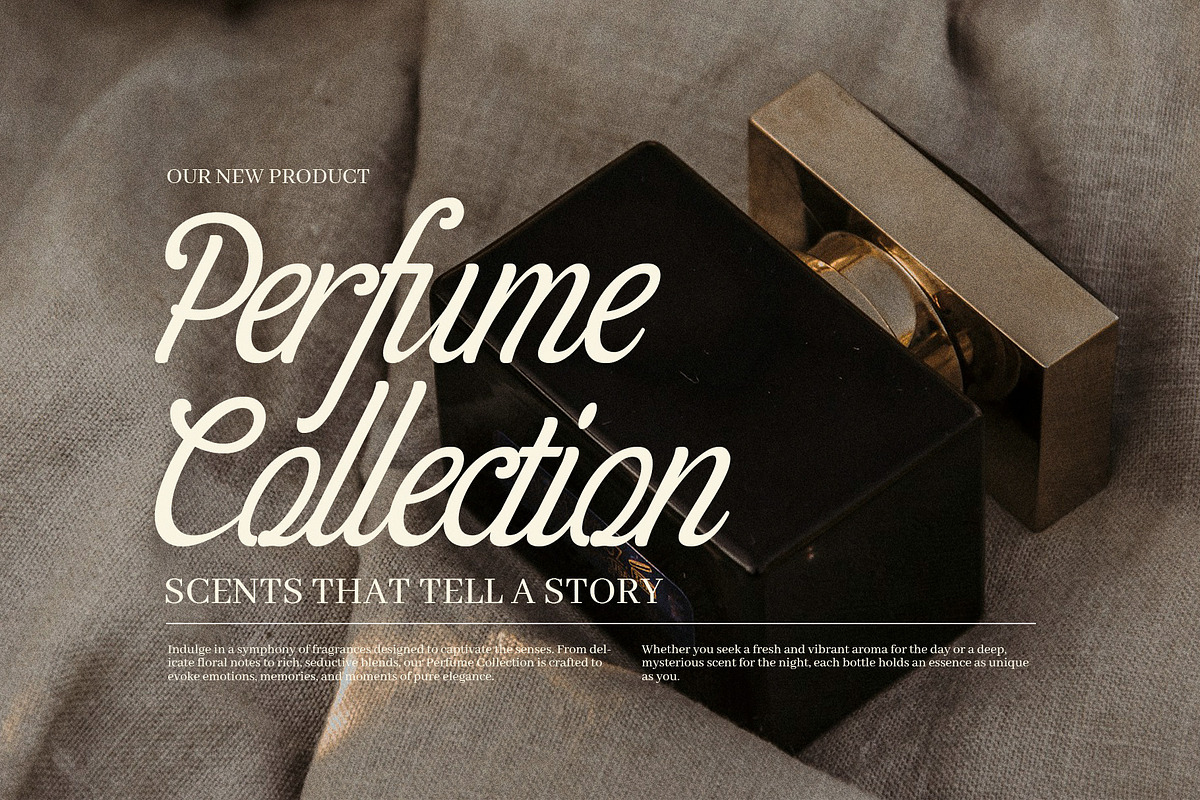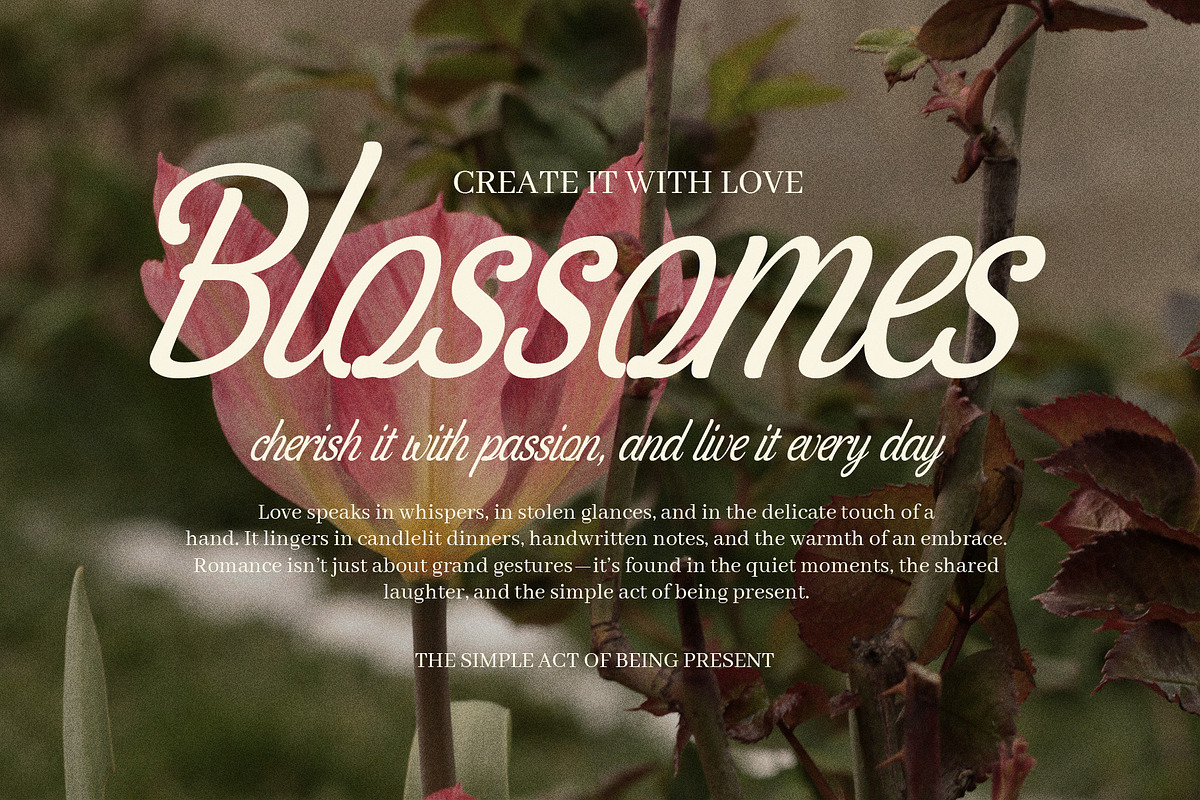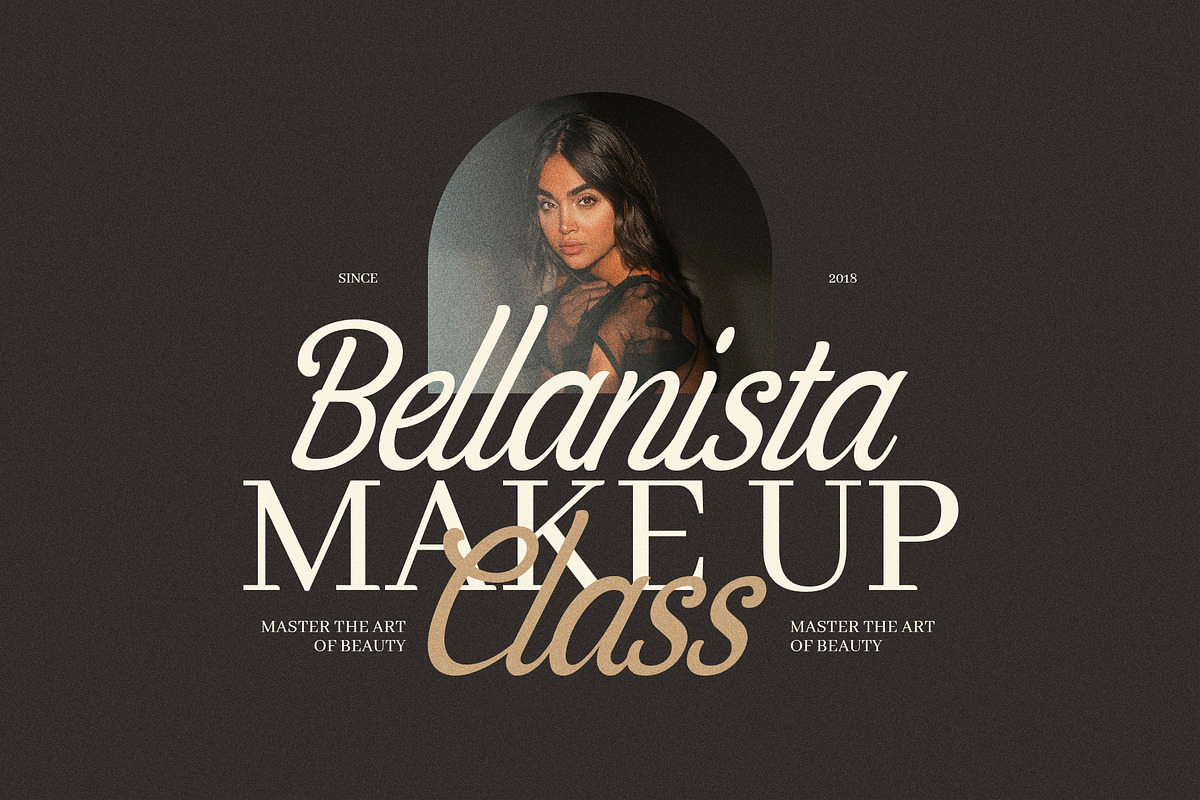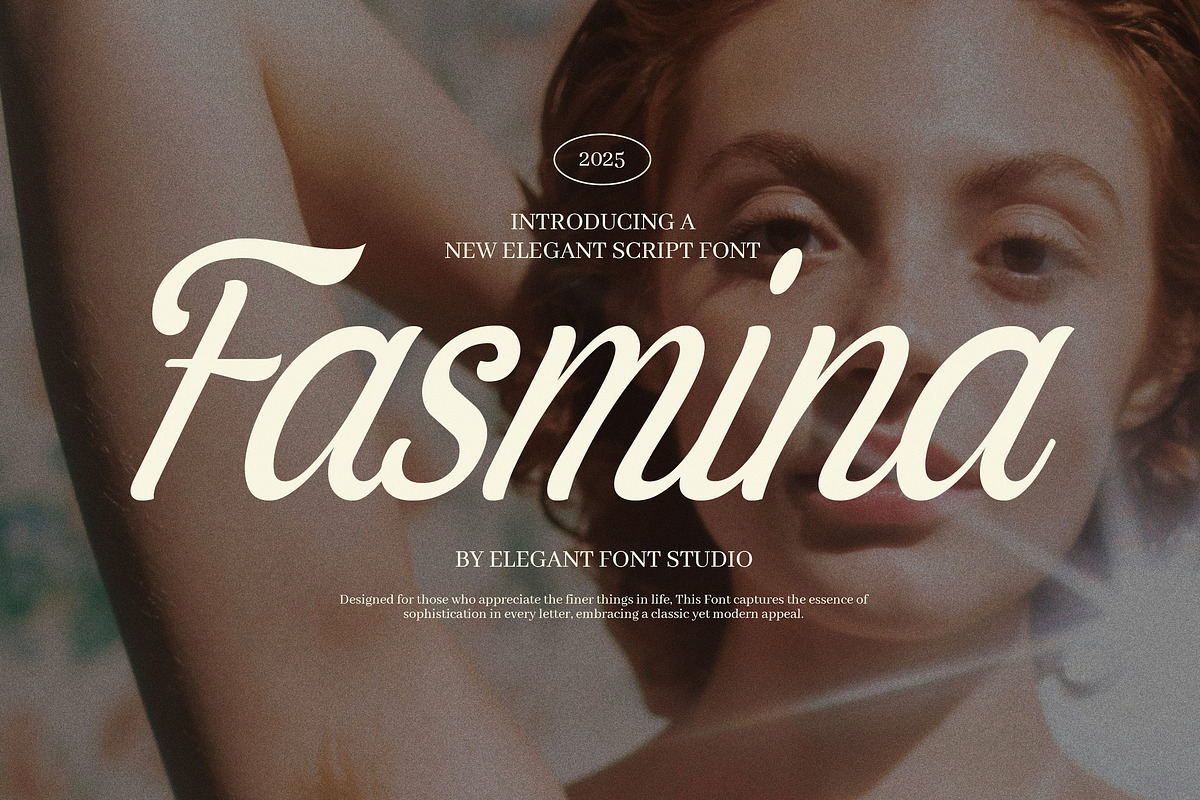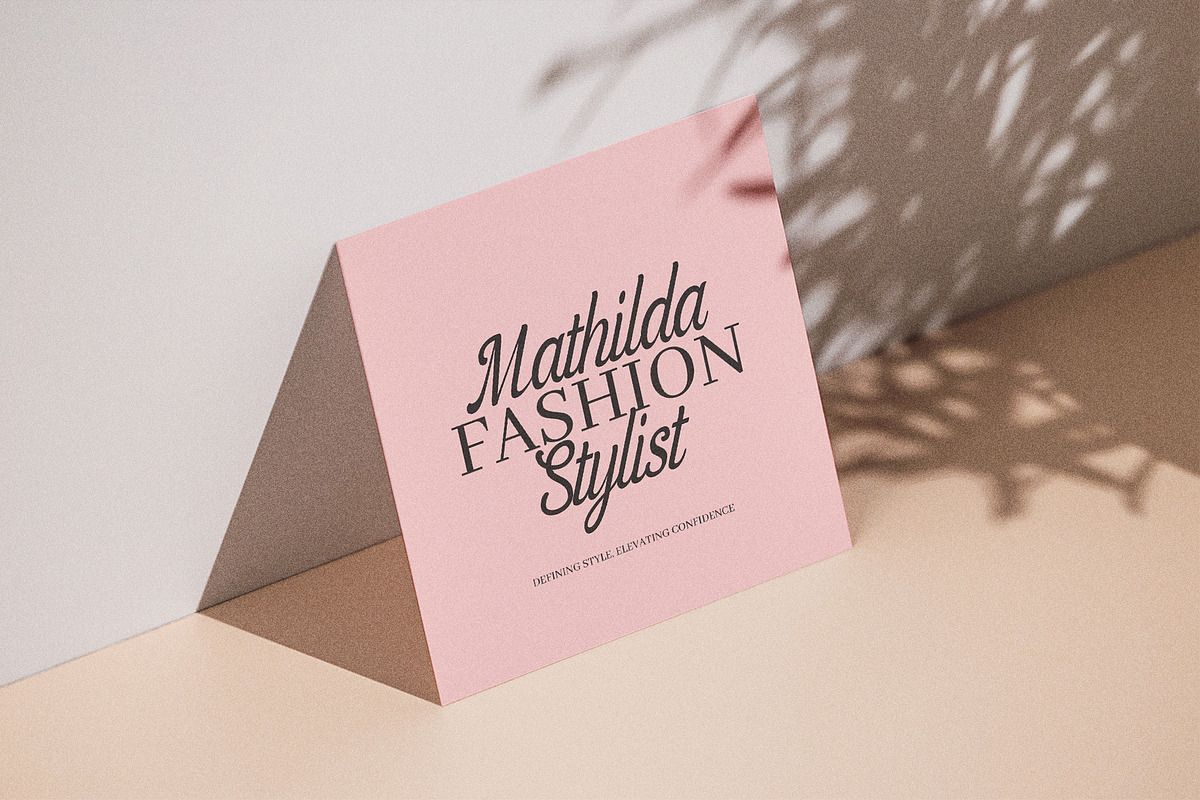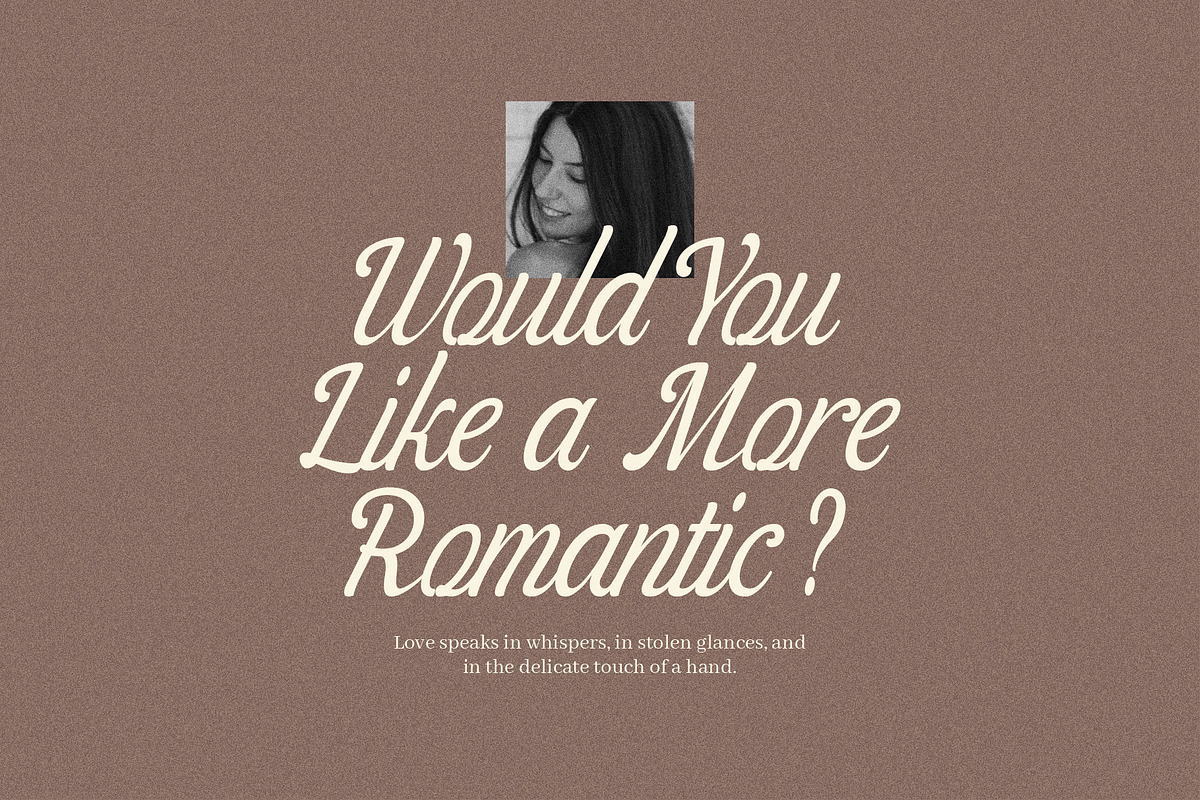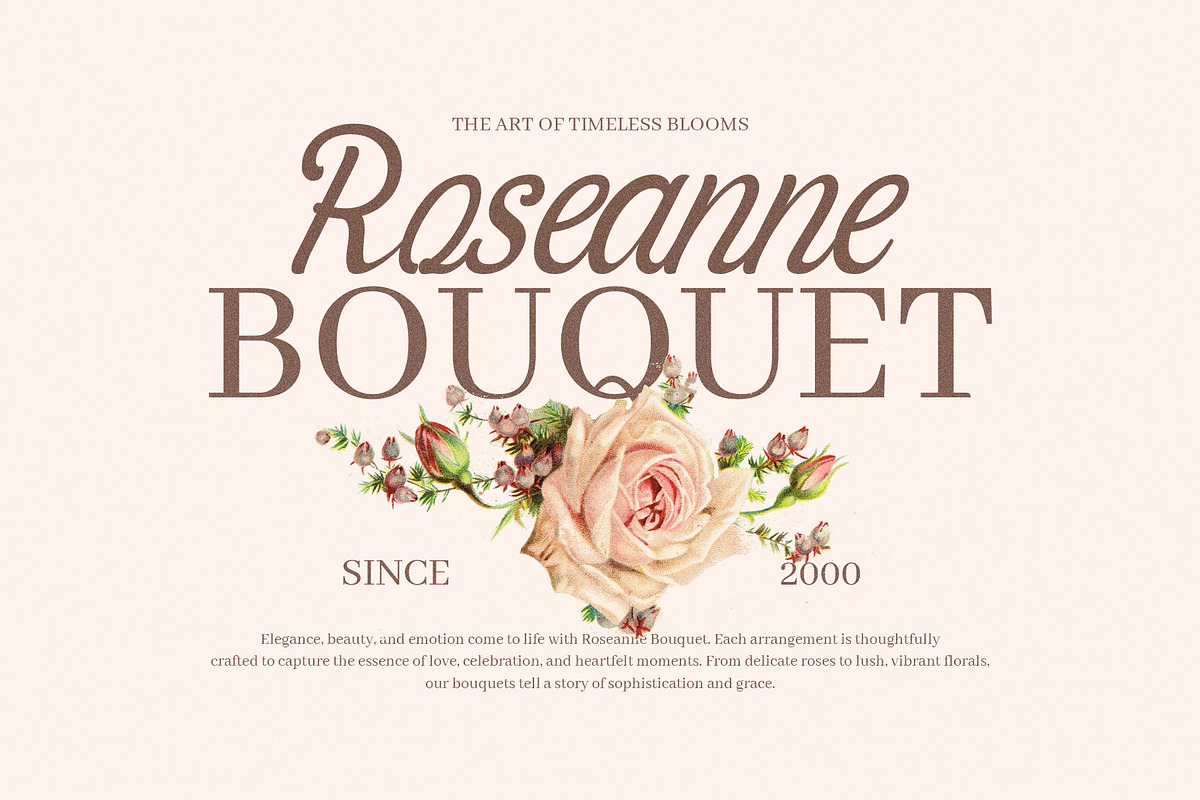
Fasmina Elegant Script Font
Fasmina Elegant Script Font is a graceful and refined script typeface that brings sophistication, beauty, and charm to any design. Handcrafted with fluid lines and stylish curves, Fasmina captures the timeless elegance of classic calligraphy with a fresh, modern twist—making it the perfect choice for projects that demand both personality and polish.
This font features a rich collection of alternate characters, swashes, and ligatures, giving you the creative freedom to craft custom, one-of-a-kind typography. Whether you're designing a luxurious wedding invitation, an upscale brand logo, or a romantic album cover, Fasmina helps elevate your message with a soft, elegant touch.
Fasmina is especially suited for branding, event stationery, fashion design, social media graphics, magazine layouts, and high-end packaging. Its natural, flowing script style makes it ideal for Canva projects, business cards, advertising, and website headers that require a handwritten yet professional aesthetic.
More than just a font, Fasmina brings emotion and artistry into every letter. Whether you're creating for weddings, beauty brands, fashion labels, or music promotions, this font adds a refined and memorable style that sets your work apart.
Let your words flow with beauty and confidence through Fasmina Elegant Script Font—where every stroke is expressive, every alternate is crafted with care, and every design is transformed into a work of timeless art.